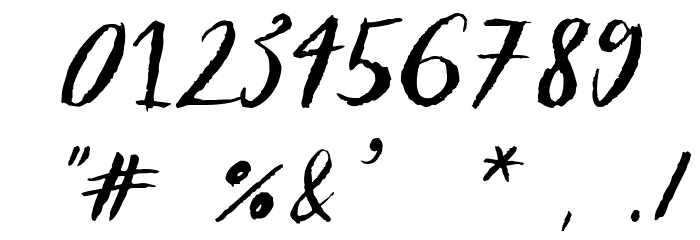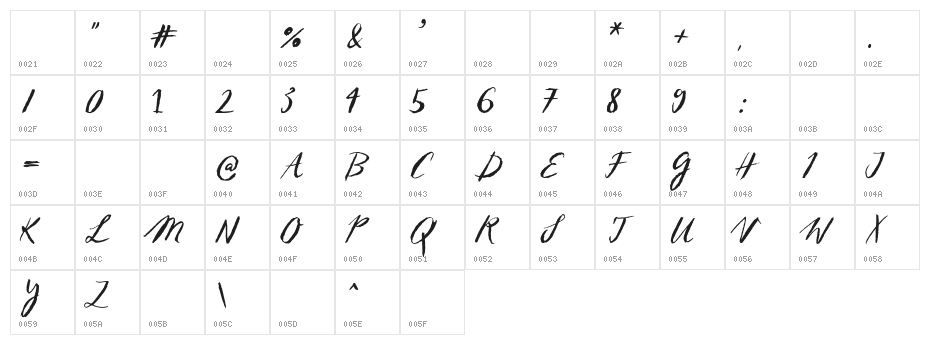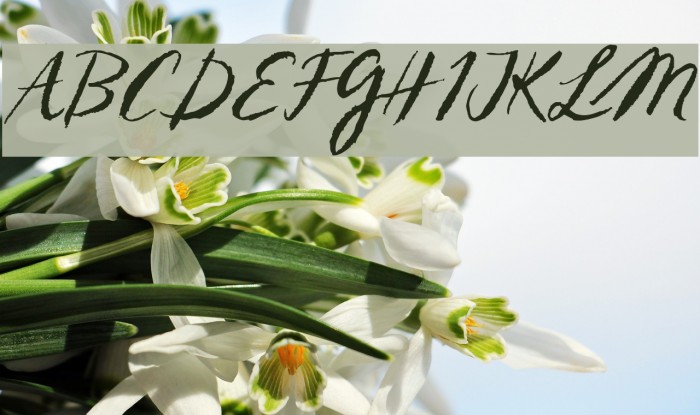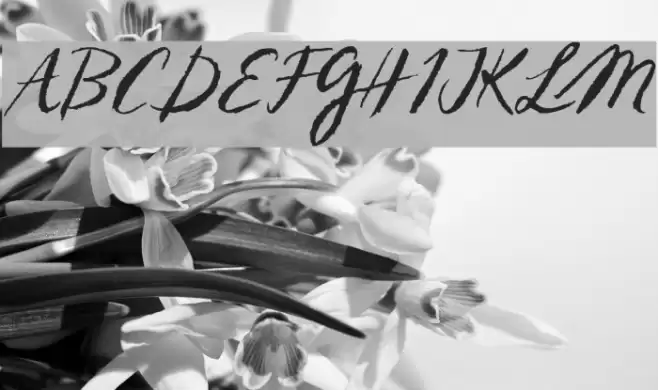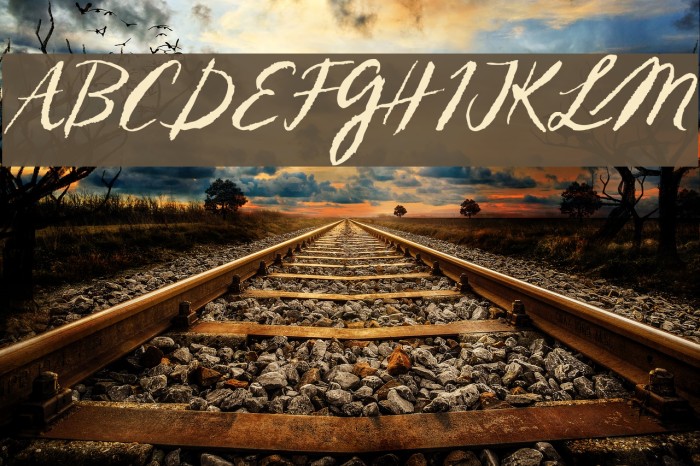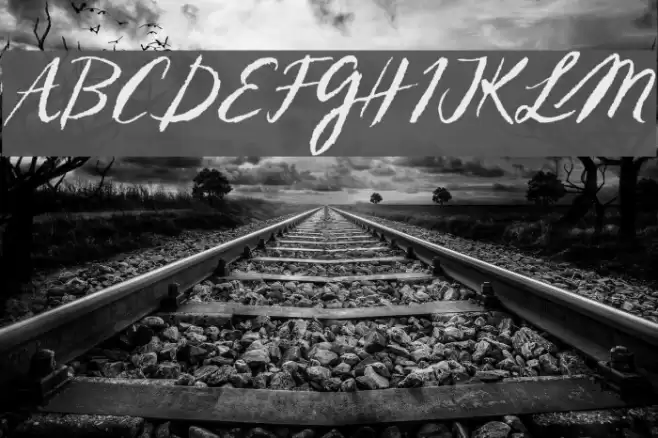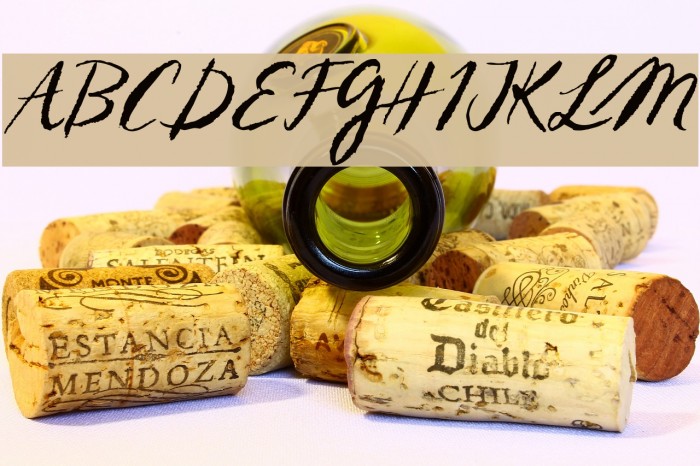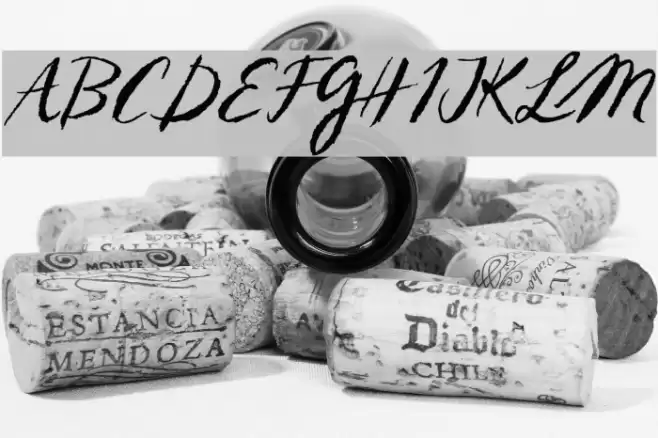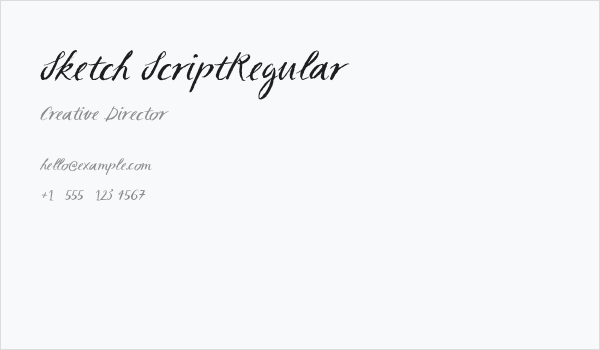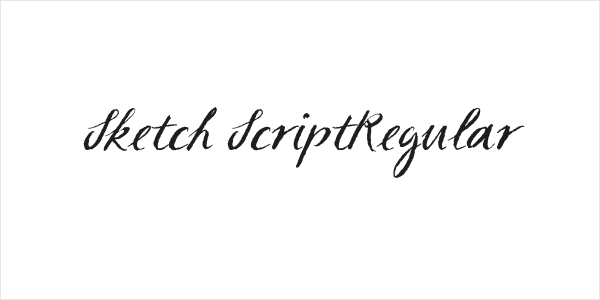
Sketch ScriptRegular Font
Sketch ScriptRegular Description
This font exudes a dynamic and expressive style, characterized by its fluid and cursive script. The letters are crafted with a hand-drawn appearance, featuring varying stroke widths that add a sense of movement and energy. The uppercase letters are bold and slightly slanted, while the lowercase letters maintain a consistent flow with elegant loops and curves. The numerals and special characters complement the alphabet with a similar artistic flair, making the font suitable for creative and informal applications. Its overall appearance is both artistic and approachable, ideal for projects that require a personal touch.
| Proposed Projects | Ideal for invitations, greeting cards, artistic branding, and creative posters. |